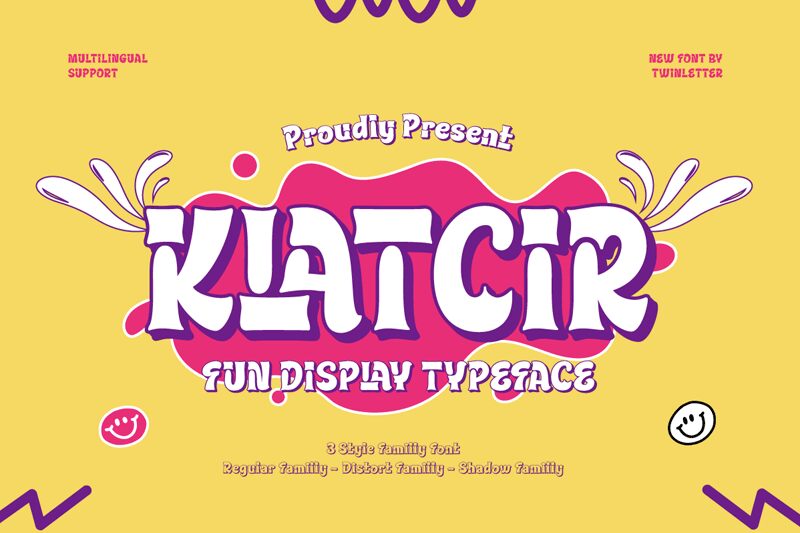
Klatcir font family is a groovy typeface designed by twinletter with cartoonish influences and an energetic presence. The two font styles are inspired by retro pop culture, with elements of style that effectively capture funky typography. The curvaceous letter shapes are bold, with fun details that will excite creatives of all ages. In its basic use, the font is expressive with interesting line details that attract attention. Creating a youthful appeal for modern applications, Klatcir can be imagined for any entertaining purpose.
A vibrant typeface with a lively attitude, Klatcir is suitable for a wide range of media such as digital interfaces, product packaging, handwritten print materials, fashion headlines, advertising billboards, signage, posters, cards, book covers, movie titles, page covers, and social media posts, among others. Draw attention to your branding and marketing projects with this lively classy set of characters.